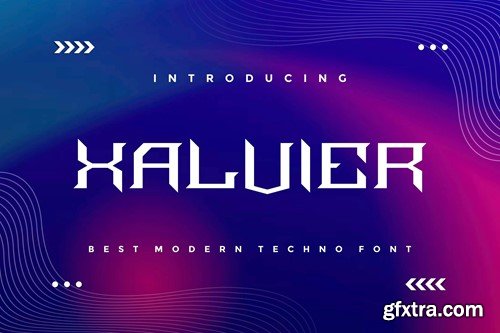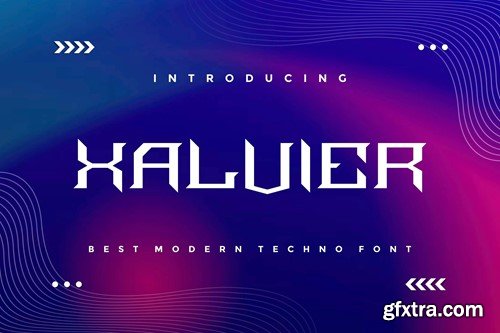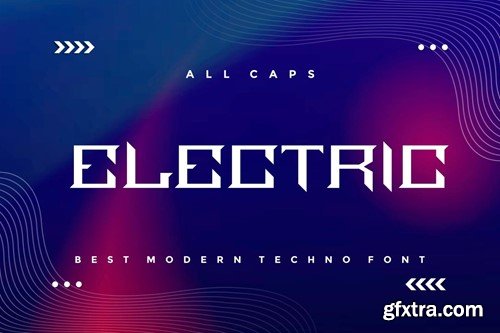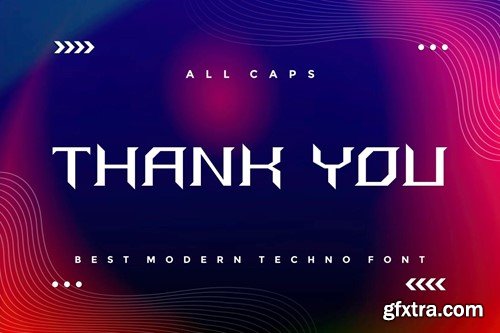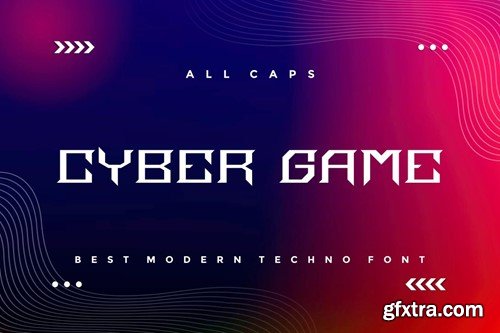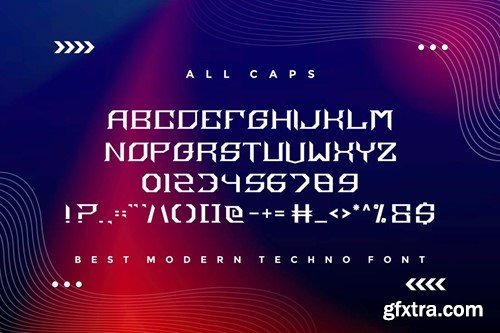
Xalvier - 现代Techno字体 6BLH6T3
Xalvier - Modern Techno Font
Introducing our new product Xalvier - Modern Techno Font Xalvier is a bold, modern display font with playful flair, ideal for attention-grabbing headlines, logos, and diverse design projects. Versatile and readable in both digital and print, Xalvier adds a dynamic touch to your message. availlable